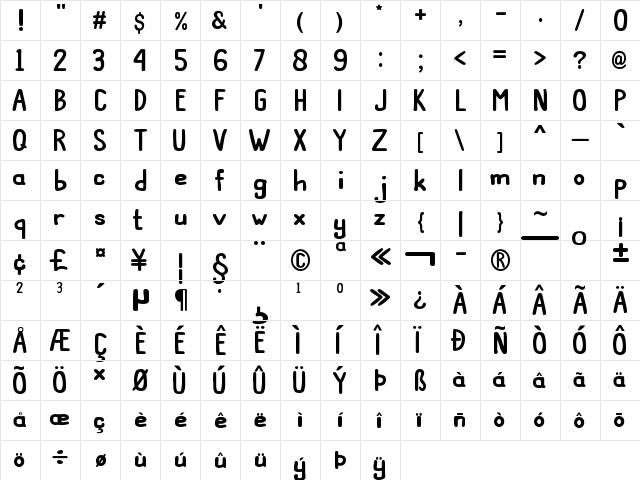
Kids Bondes Regular Regular
| Designer | Pandanwangi 2020 |
Design Context for Kids Bondes Regular Typeface
Kids Bondes Regular has an approachable, lighthearted character — its loose, expressive forms are well-suited to children's content, casual branding, and fun-first design.
Font Pairing: Pairs well with a rounded or humanist sans for body copy, maintaining the friendly tone without relying on Kids Bondes Regular to carry extended reading.
Pro Tip: Avoid using Kids Bondes Regular for long passages of text — it works best for headlines, labels, and short calls to action.